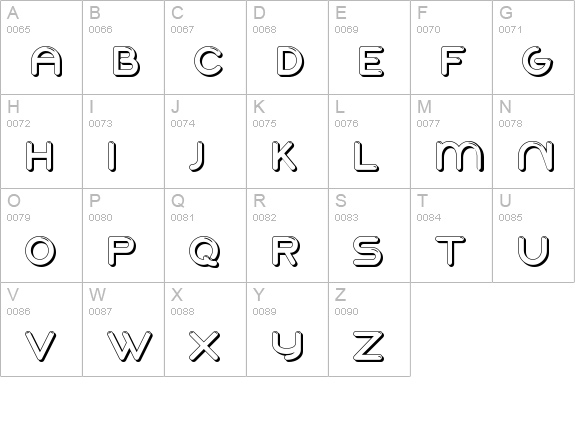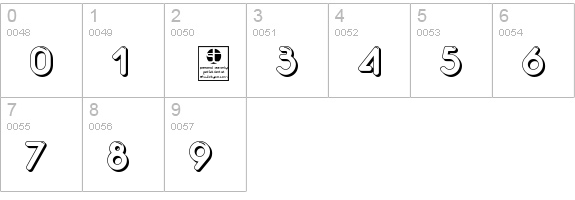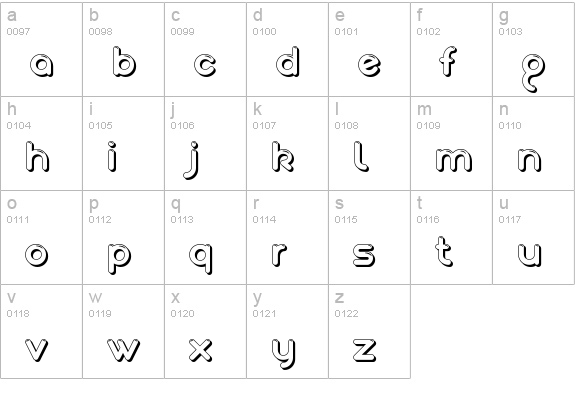
Akaju Outline Font Details
Introducing Akaju Outline, a stunning font that effortlessly combines sleek sophistication with a touch of modern minimalism. Designed to make a bold statement, this font captures attention with its clean lines and elegant curves, making it perfect for a variety of creative projects. Akaju Outline is a versatile font that can be easily adapted to suit any design concept. Whether you're working on a logo, branding materials, editorial layouts, or even social media graphics, this font adds a unique touch of professionalism and style. With its carefully crafted outlines and meticulous attention to detail, Akaju Outline will elevate your designs to the next level. But what truly sets Akaju Outline apart is its affordability. Yes, that's right – this font is completely free! You can download it at FontsMarket.com, where it is readily available for anyone looking to add a touch of elegance and creativity to their projects. Say goodbye to expensive font licenses and hello to the freedom of creativity. Don't let the word "free" fool you – Akaju Outline doesn't compromise on quality. It is expertly crafted to ensure smooth and flawless rendering across various platforms and devices. Whether your design is destined for print or digital media, this font will maintain its impeccable look, ensuring your message is delivered with utmost clarity and impact. So why wait? Download Akaju Outline today and unleash your creative potential. Let this font become your go-to choice for all your design needs. With its seamless integration and the freedom to use it in any project, Akaju Outline is a font that not only enhances your designs but also saves you valuable time and resources. Experience the beauty and versatility of Akaju Outline – a font that combines elegance and affordability in a truly remarkable way. Download it for free at FontsMarket.com and embark on a creative journey like never before.